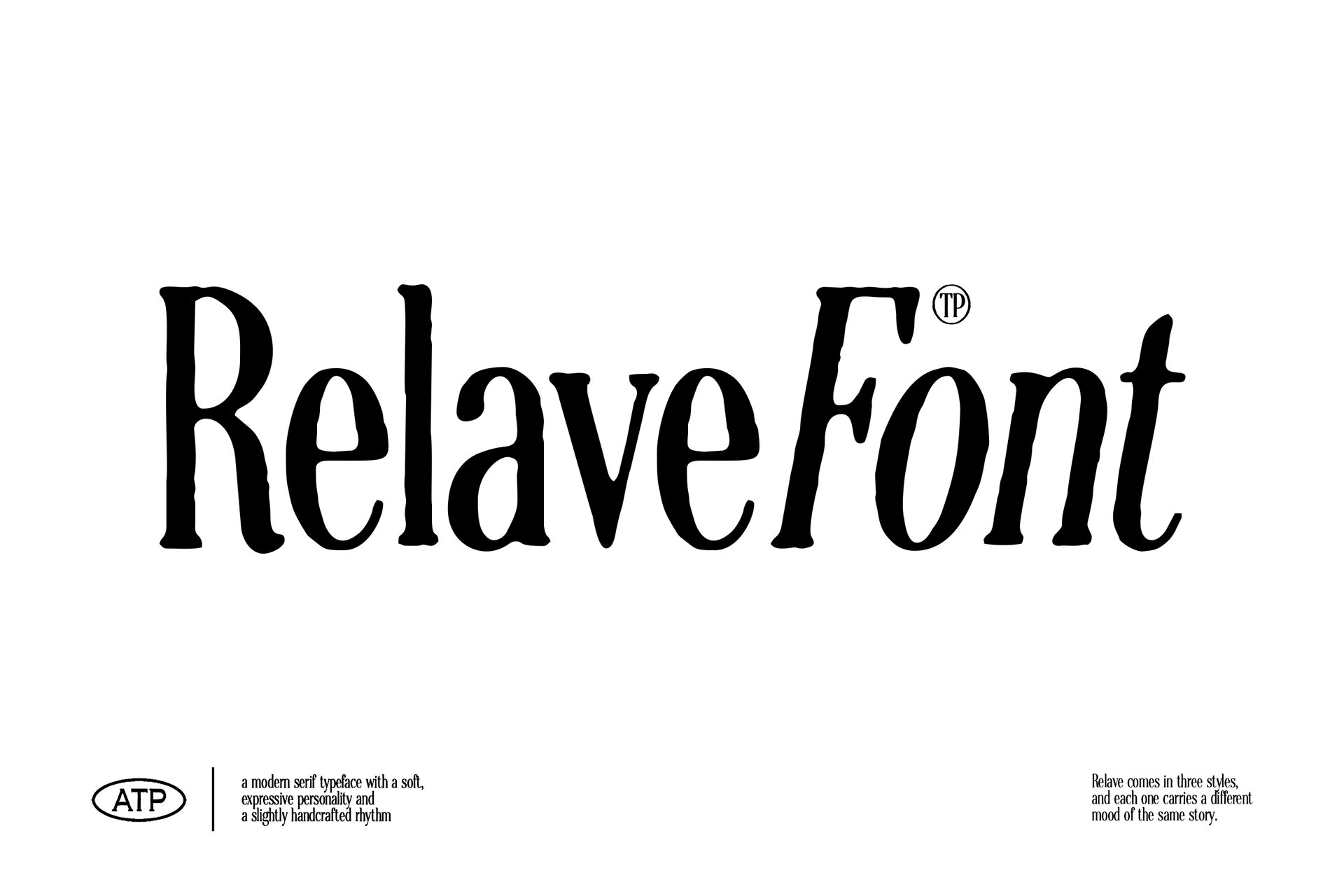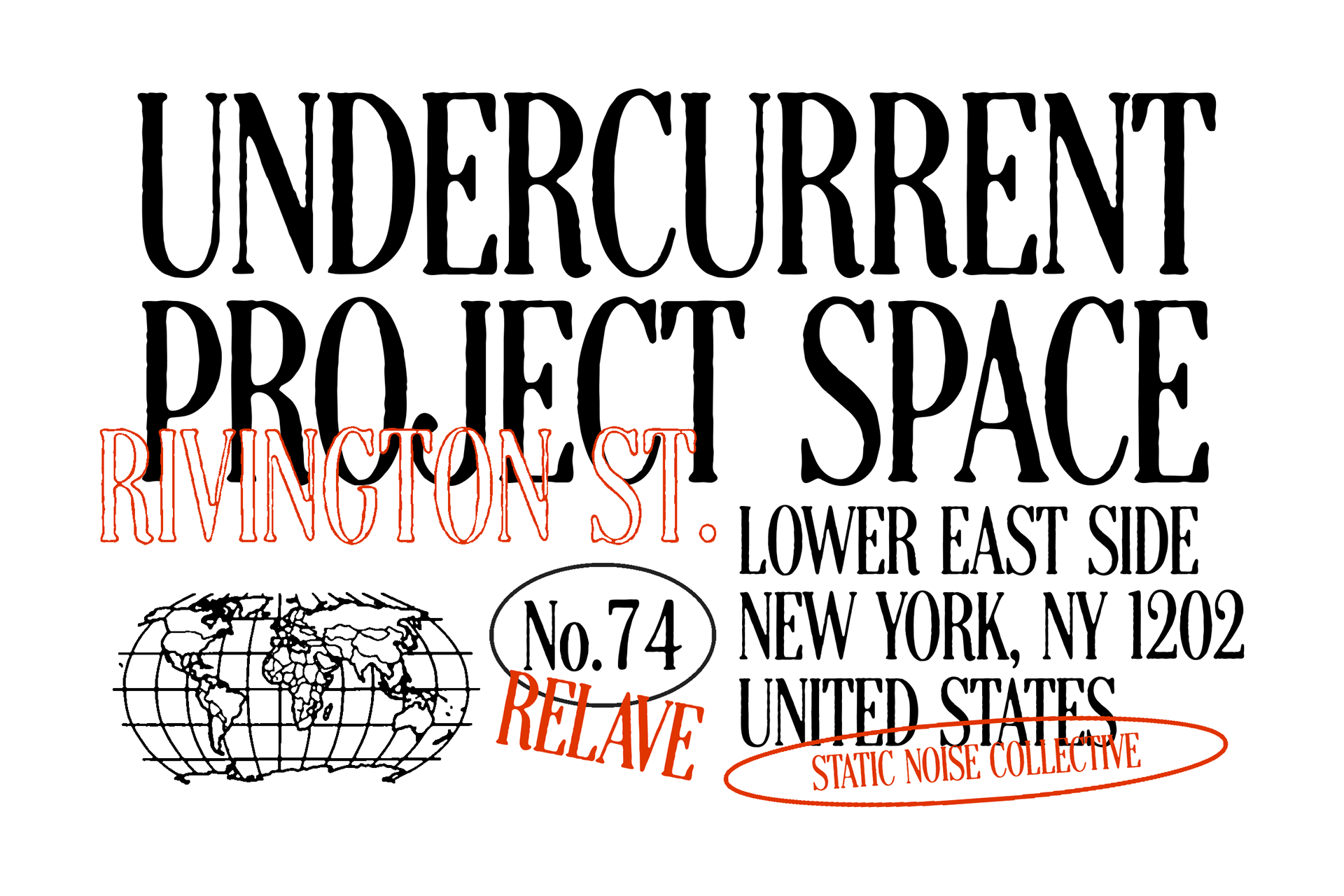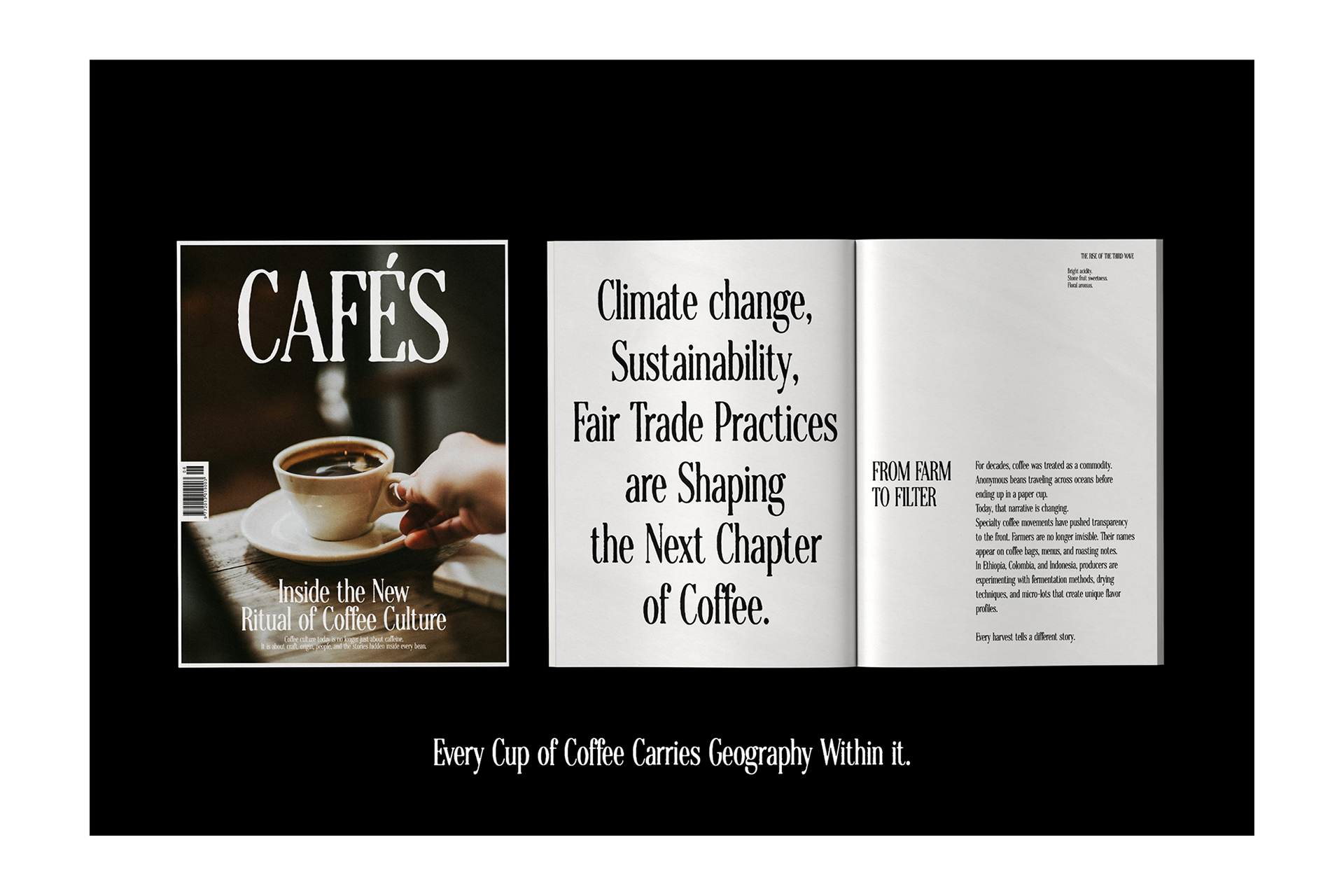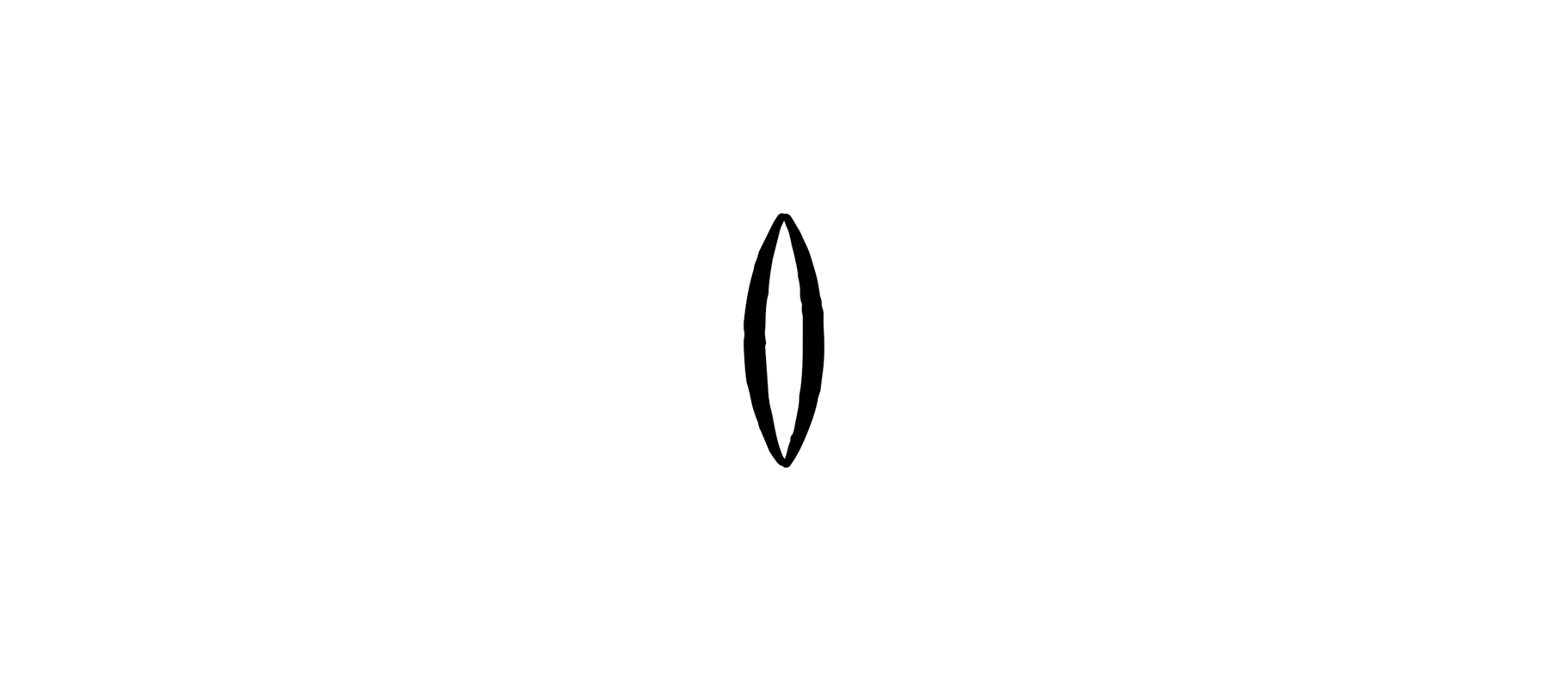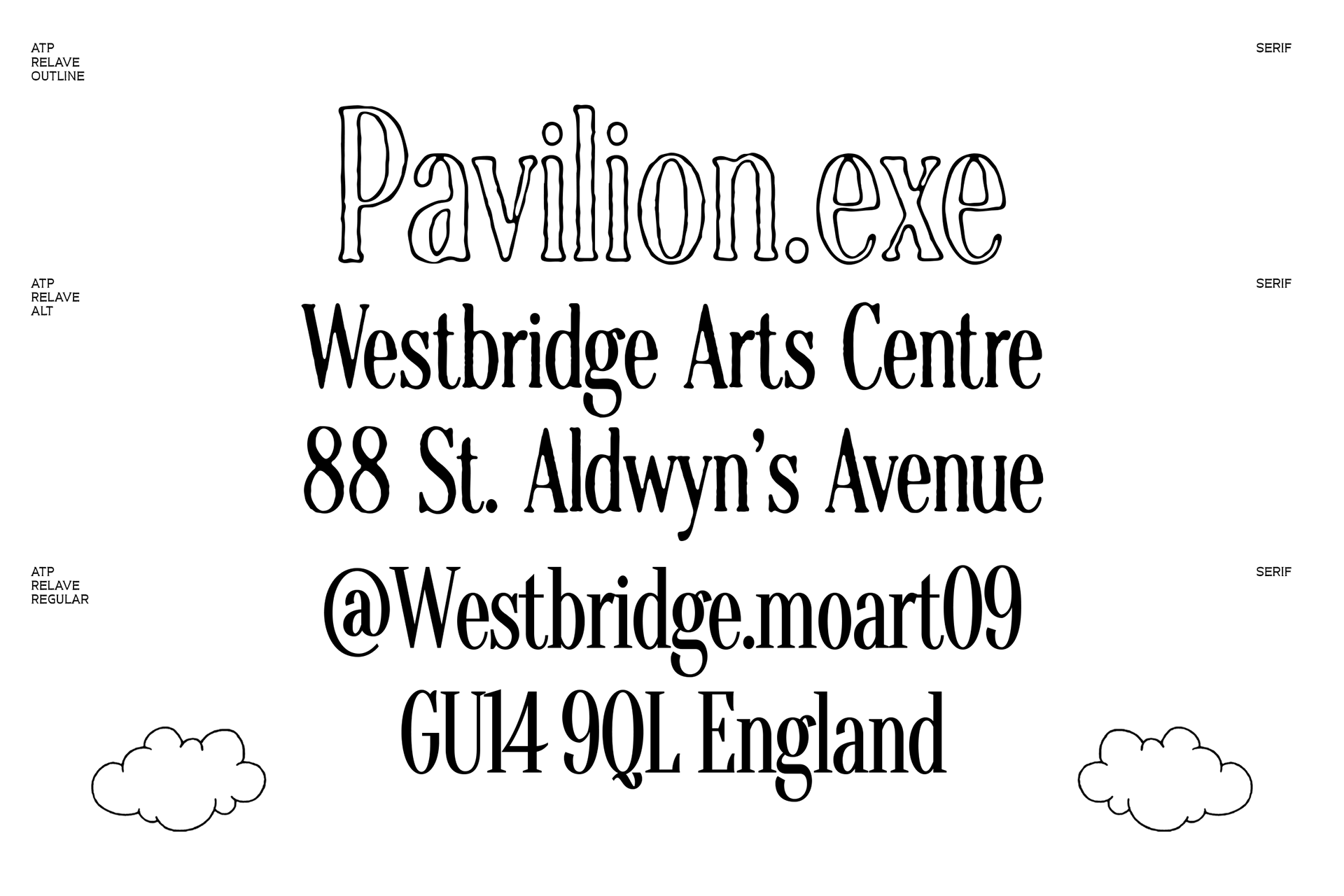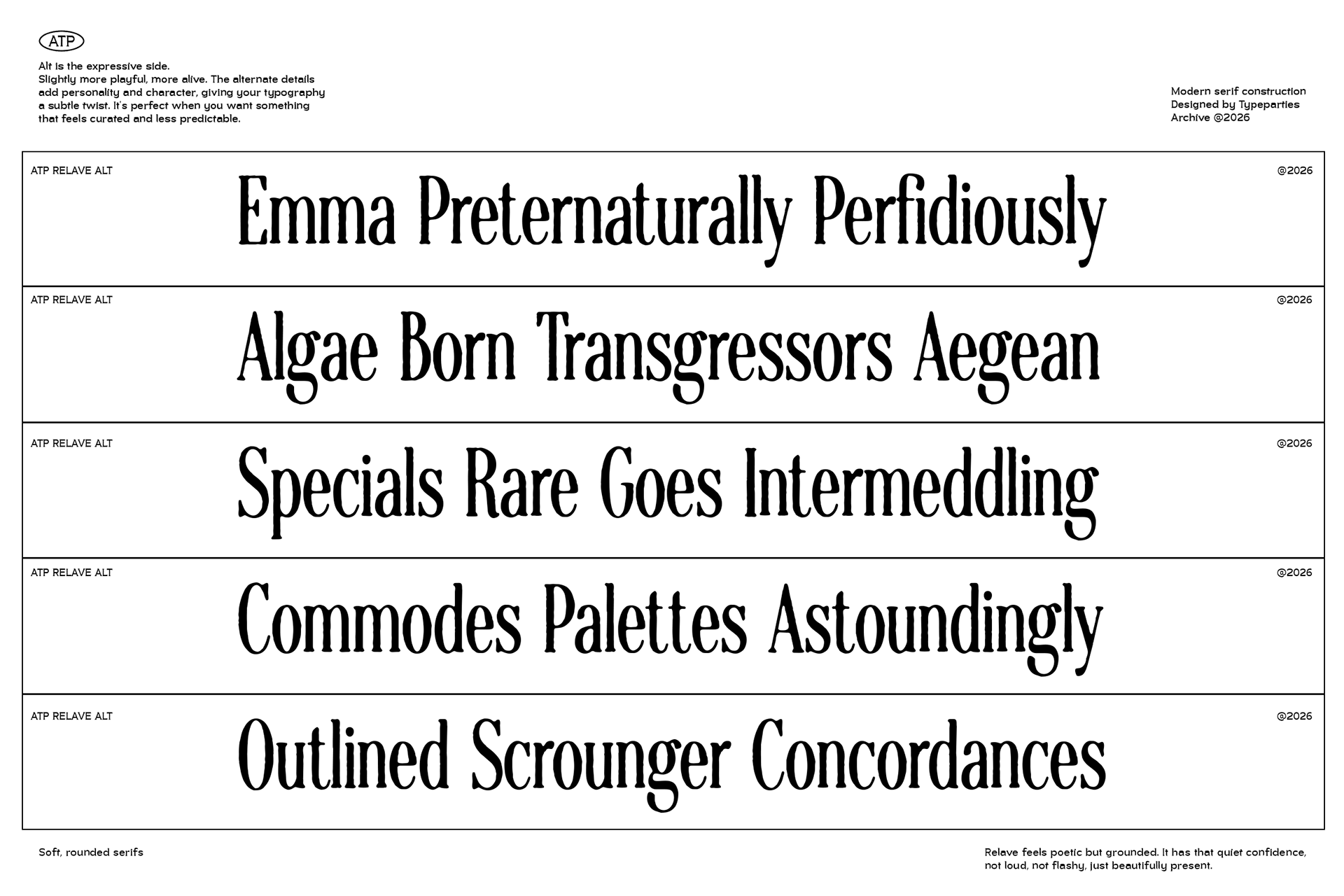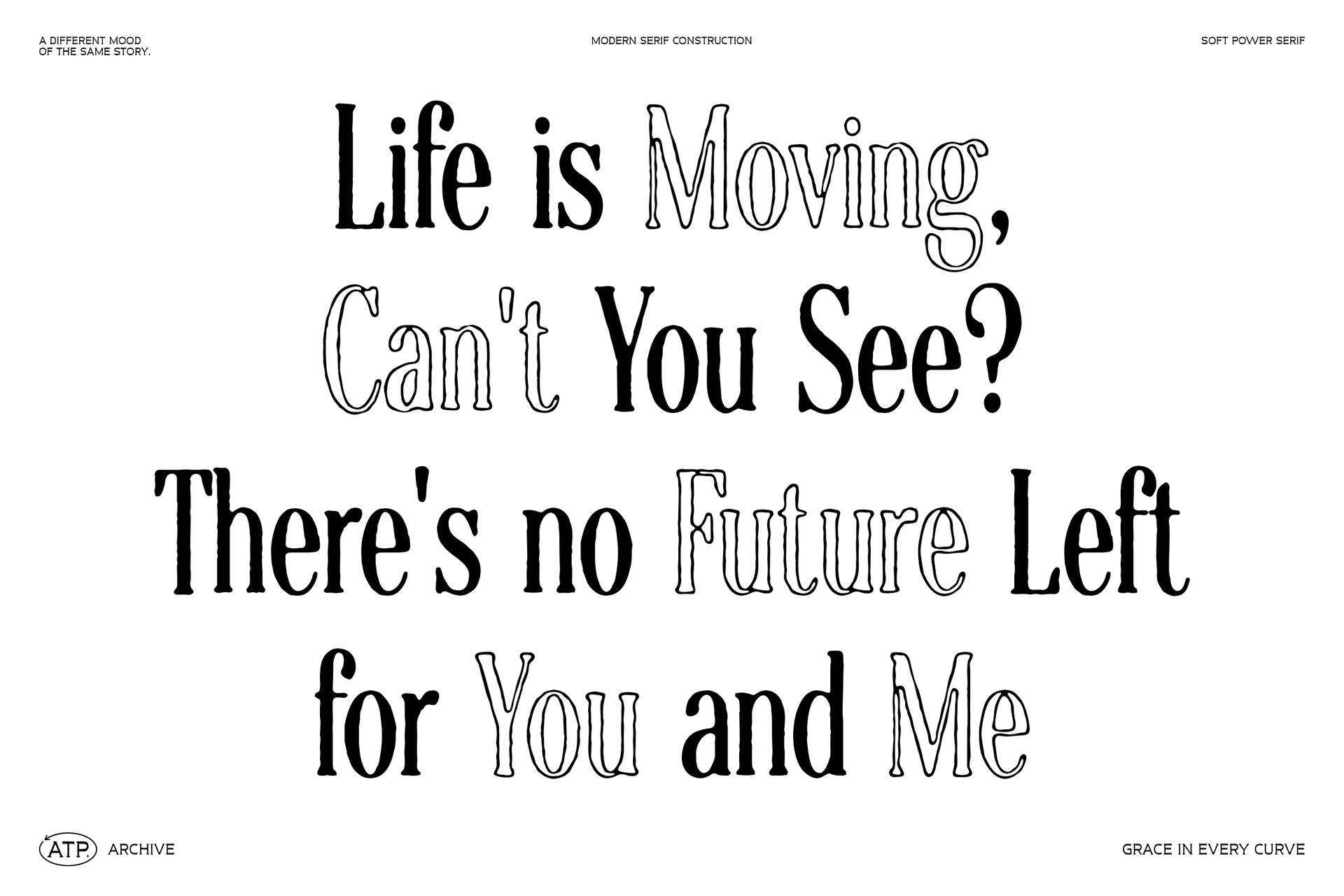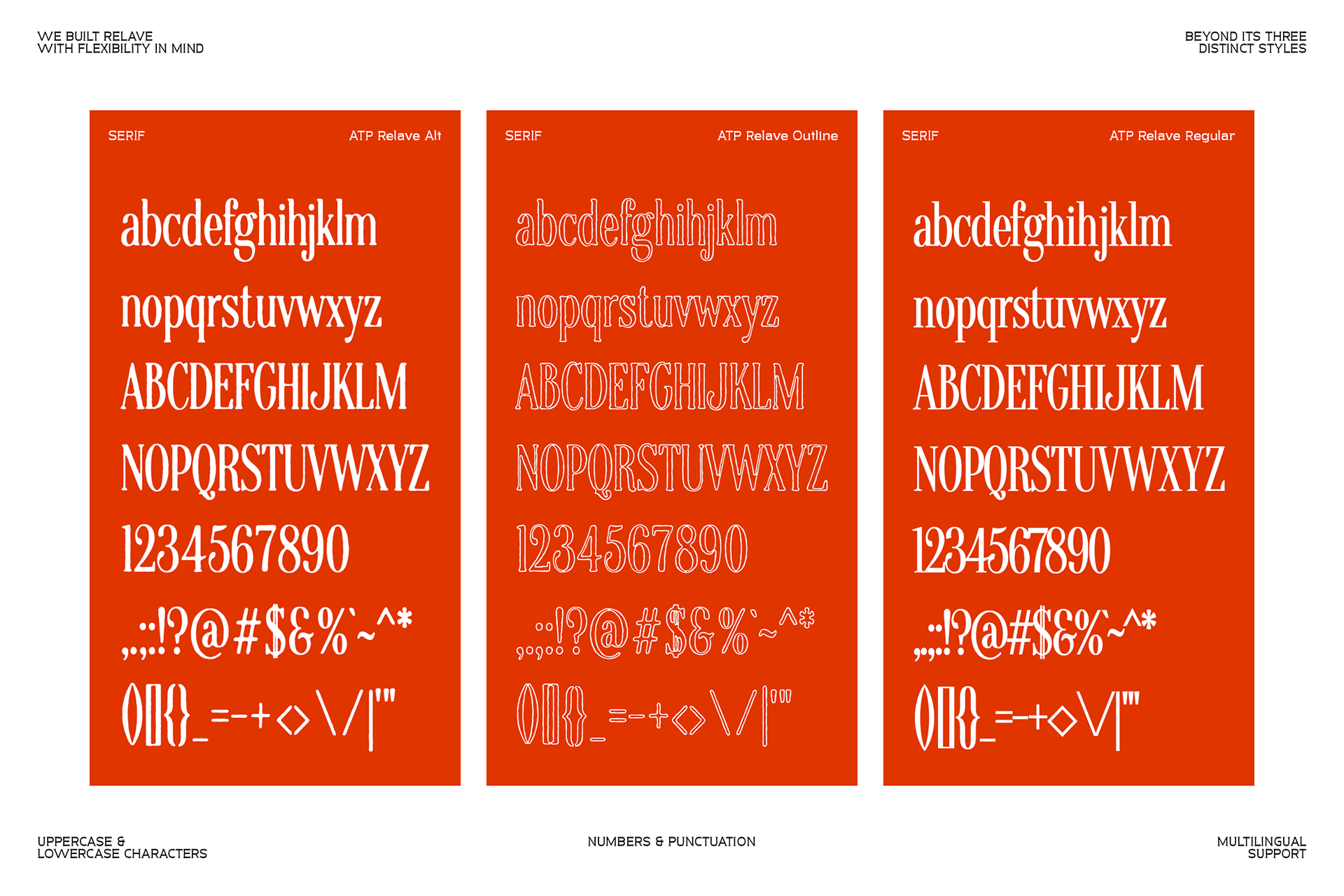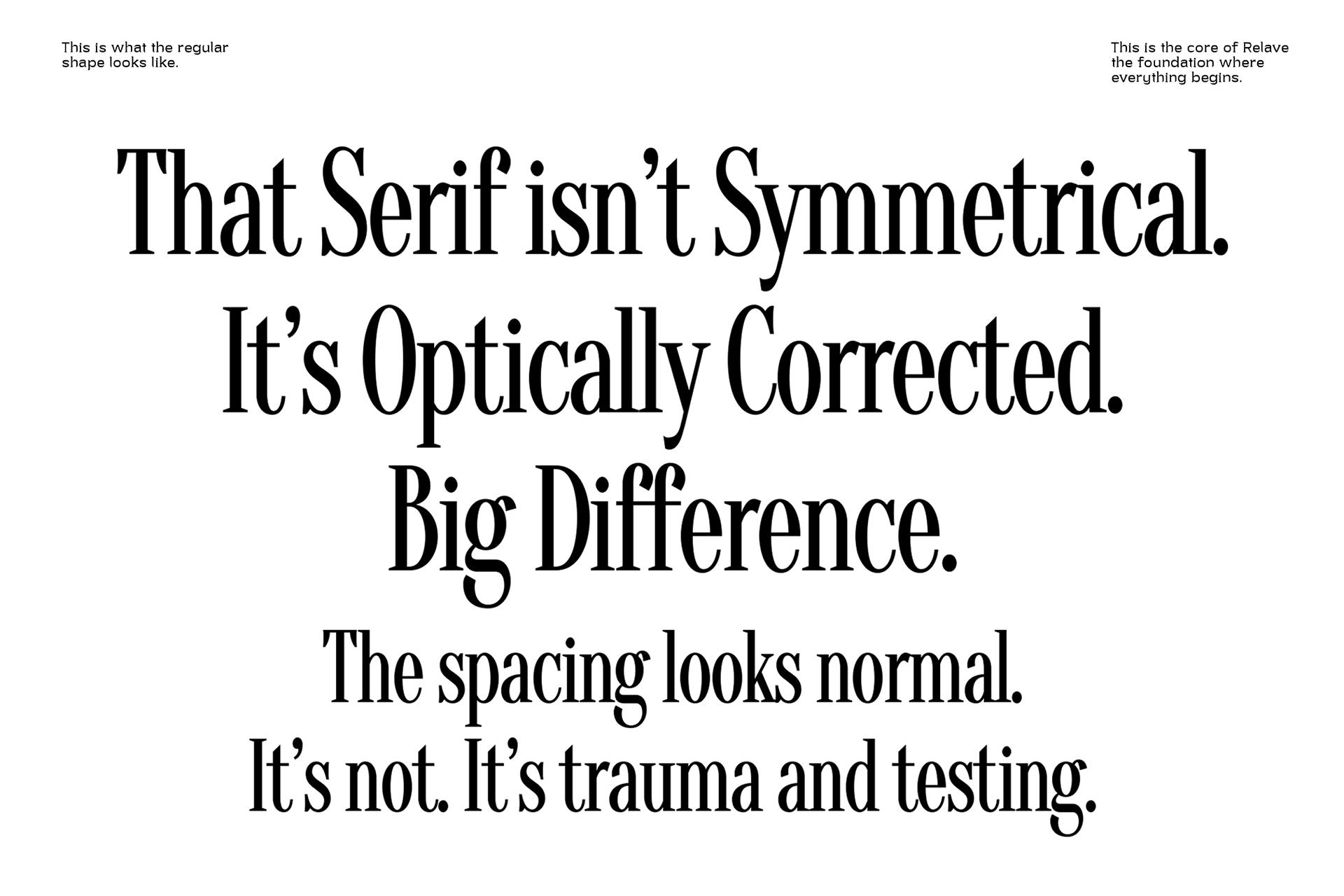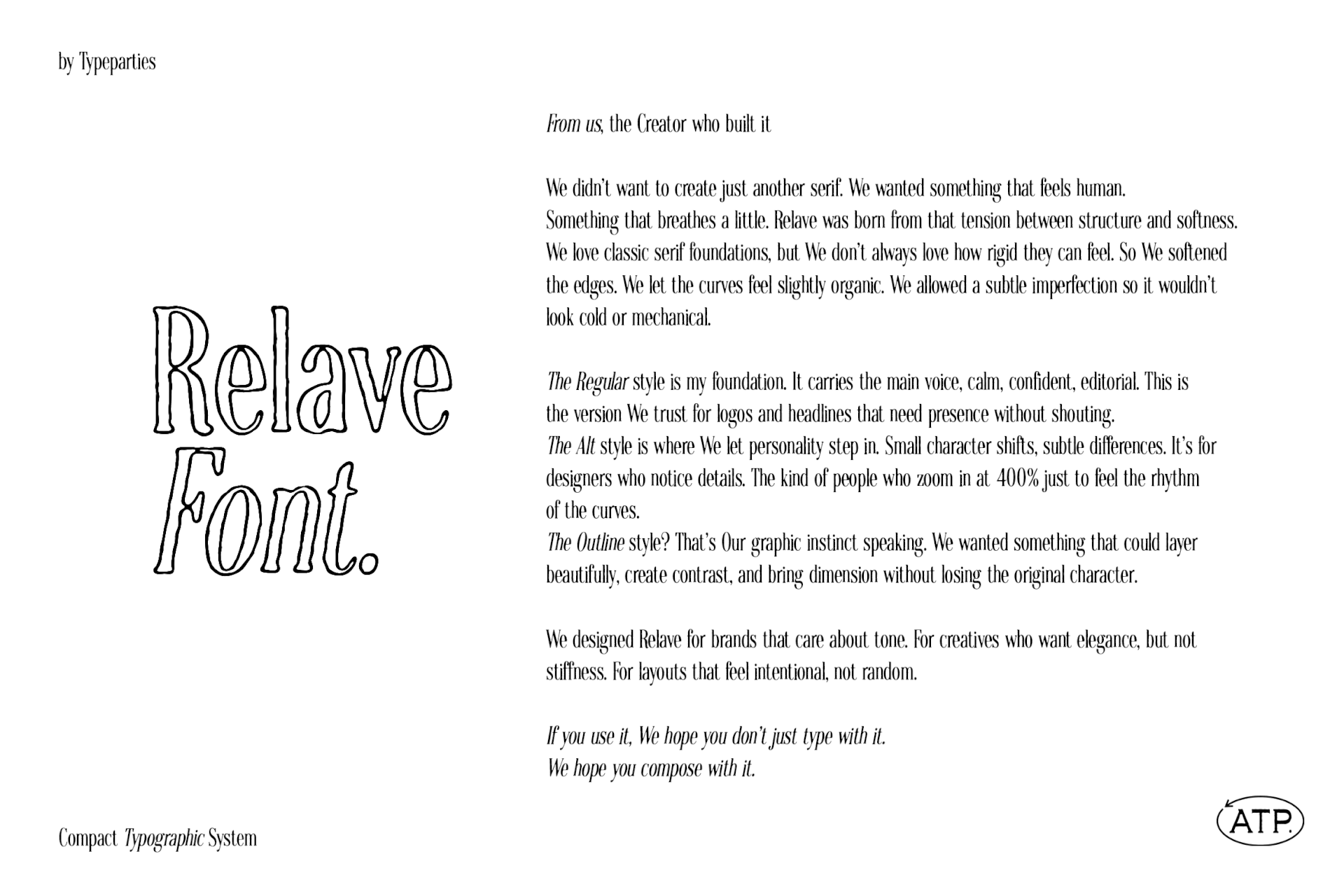
Relave Alt - Expressive Modern Serif
Relave Alt is an expressive version of the Relave typeface family. Building on the modern serif construction, this style introduces playful alternate details that give the typeface a more lively and human personality.
The letterforms retain the balanced serif structure, but subtle irregularities in the curves and edges create a softer, more organic rhythm. The rounded serifs and slightly relaxed proportions make the typeface feel warm, approachable, and editorial rather than stiff or mechanical.
Relave Alt works beautifully in projects where the typeface requires character without losing clarity. Its alternates present a curated and slightly unexpected tone, perfect for designs that aim to feel thoughtful, poetic, and visually engaging.
Because of its moderate contrast and comfortable spacing, Relave Alt remains highly readable while still providing a distinctive visual voice.